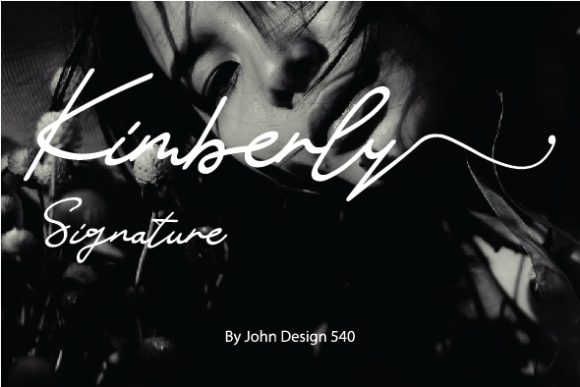
Kimberly Signature Font for Web Design and Digital Branding
Integrating Kimberly Signature Script Handwritten Fonts into Hero Sections
When selecting typography for high-impact website headers, Kimberly Signature serves as a relaxed and timeless handwritten font that immediately establishes an authentic brand voice. As web designers and UI creators, we understand that the hero section is the primary conversion point where visual hierarchy dictates user engagement. This specific typeface offers a unique balance of elegance and approachability, making it ideal for landing pages that require a personal touch without sacrificing professional credibility. Unlike rigid display fonts, the organic flow of this script creates a natural reading rhythm that guides the eye toward key value propositions or call-to-action buttons.
In digital product design, the versatility of Kimberly Signature allows it to function effectively across various screen densities and resolutions. When implementing this font in a hero layout, consider its x-height and ascender clearance to ensure it remains legible against complex background imagery or video overlays. The font’s inherent texture adds depth to flat web interfaces, transforming generic templates into bespoke brand experiences. For SaaS founders or creative entrepreneurs launching a new platform, using this typeface in the main headline can differentiate the product from competitors relying on standard system sans serifs, signaling craftsmanship and attention to detail.
Optimizing Readability for Mobile Responsive Layouts
Responsive web design demands that Script Handwritten fonts maintain integrity when scaled down for mobile viewports, and Kimberly Signature excels in this adaptive environment. Digital readability is paramount for conversion-focused layouts; if a user cannot instantly decipher a headline on a smartphone, bounce rates increase significantly. This font family features open counters and distinct letterforms that prevent character collision at smaller sizes, a common failure point with many decorative fonts. When coding responsive CSS, set minimum font-size thresholds specifically for this typeface to preserve its delicate stroke weight and prevent pixelation on high-DPI retina displays.
For online store owners and bloggers, mobile optimization extends beyond mere size adjustments to include line-height and letter-spacing tuning. Kimberly Signature requires slightly more generous leading than standard body text to accommodate its sweeping ligatures and natural variations. In app screens or mobile navigation menus, use this font sparingly for accent elements rather than functional labels to maintain usability. By treating this typeface as a strategic visual anchor rather than a utility font, designers ensure that the mobile experience feels curated and intentional, supporting both aesthetic goals and performance metrics.
Using Kimberly Signature for Wedding Invitations and E-Commerce Branding
The transition from print to digital is seamless when utilizing Kimberly Signature for wedding invitations and luxury e-commerce branding because its versatile style bridges traditional elegance with modern web standards. For boutique online stores selling artisanal goods, jewelry, or bridal services, this font acts as a digital proxy for high-end stationery art. It communicates value and exclusivity directly through typography, influencing purchasing decisions before the user even reads the product description. When designing category banners or promotional headers, the relaxed nature of the script softens the transactional feel of an online shop, fostering emotional connection and brand trust.
Digital product creators designing sellable templates or social media kits will find that Kimberly Signature provides immediate perceived value to their assets. Its timeless quality ensures that designs do not look dated after a single season, which is crucial for evergreen content strategies. Whether applied to Instagram story highlights, Pinterest pins, or email newsletter headers, the font maintains consistent recognition across platforms. This consistency reinforces brand identity, helping users associate the specific typographic texture with your client’s unique market position. For wedding websites specifically, pairing this script with clean editorial photography creates a cohesive narrative that mirrors the physical invitation suite.
Strategic Font Pairing for Visual Hierarchy and Conversion
Achieving professional visual hierarchy requires pairing Kimberly Signature with complementary sans serif or serif fonts to create contrast and improve scanning behavior. While this script shines as a display element, it relies on structured supporting typefaces to handle dense informational content. For landing pages focused on lead generation, combine this handwritten font for testimonials and pull quotes with a geometric sans serif for feature lists and pricing tables. This juxtaposition highlights the human element of customer feedback while maintaining clarity for data-heavy sections, ultimately guiding users toward conversion points with reduced cognitive load.
In editorial web design and blog layouts, Kimberly Signature can be used to break up long-form text and emphasize key takeaways. Use it for subheadings, drop caps, or sidebar accents to create visual pauses that keep readers engaged. However, avoid using it for navigation links, buttons with critical actions, or legal disclaimers where instant recognition is non-negotiable. Instead, reserve the script for moments of emotional resonance or brand storytelling. Effective font pairing is not just about aesthetics; it is a functional tool that organizes content priority. By assigning specific roles to each typeface, designers create intuitive interfaces where the decorative elements enhance rather than obstruct the user journey.
Beyond emotion, the strategic use of this font supports long-term brand equity. Trends in web design cycle rapidly, but timeless typography anchors a brand through shifting aesthetics. By investing in a versatile asset like Kimberly Signature, businesses avoid the cost and friction of frequent rebrands. It adapts equally well to minimalist white-space-heavy layouts and rich, textured maximalist designs. Whether used for a signature logo mark, a seasonal campaign header, or a permanent site accent, it provides a flexible foundation for visual identity. Ultimately, choosing the right typeface is a business decision that influences perception, engagement, and revenue, making Kimberly Signature a valuable asset in the digital creator’s toolkit.